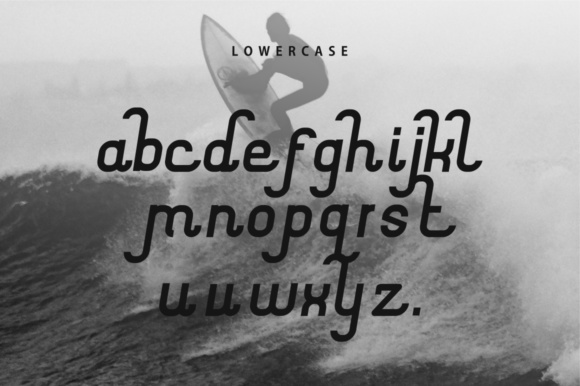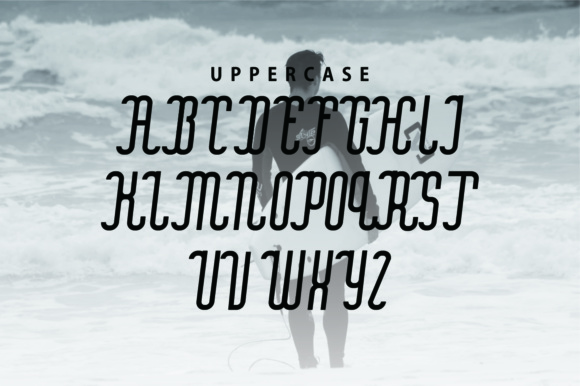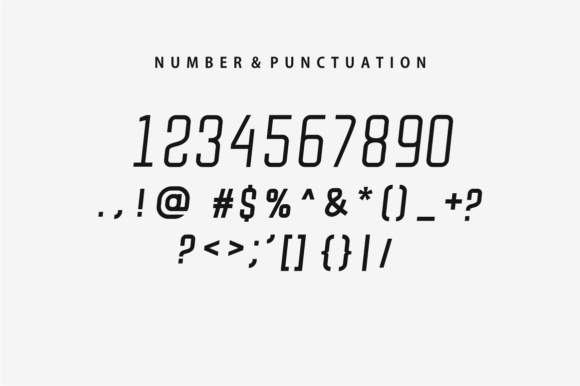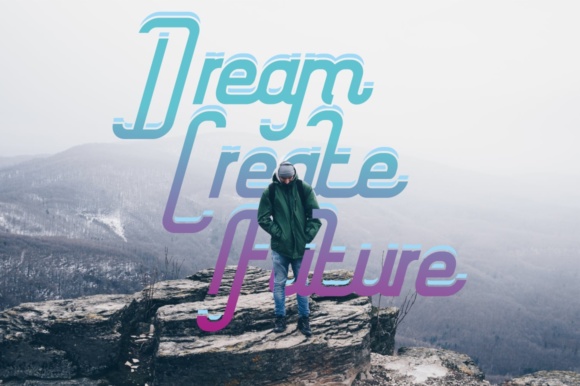
Introduction to Quick Land Font
As a designer, have you ever found yourself stuck in the middle of a creative project, searching for the perfect font to bring your vision to life? The frustration of scrolling through endless options, only to settle for something that just doesn’t quite fit, is all too familiar. But what if you could find a font that not only meets your design needs but exceeds your expectations?
Enter the Quick Land Font, a high-quality design resource that’s been making waves in the design community. With its sturdy, uncompromising style, Quick Land Font balances hard lines with smooth curves, giving it an authoritative and dynamic feel that’s perfect for any creative project.
Key Features of Quick Land Font
- High-quality design resource ideal for creative projects, including logos, branding, and graphics.
- Unique characteristics include a modern, clean design aesthetic and a wide range of customizable options.
- Perfect for designers and artists working on creative projects, including websites, social media graphics, and print materials.
Honest Review: Quick Land Font
As a designer, I’m always on the lookout for high-quality design resources that can elevate my creative projects. The Quick Land Font is one such find that I’d like to share with you.
- ✨ Unique and creative style that can add a touch of whimsy to any project
- ✨ Clean and modern design that’s perfect for a variety of creative projects
- ⚠️ Limited character set, which may not be suitable for longer text-based projects
- ⚠️ Not ideal for projects that require a bold, attention-grabbing font
Quick Land Font is suitable for various creative projects, including:
1. Branding and marketing materials.
2. Infographics and data visualizations.
3. Social media graphics and advertisements.